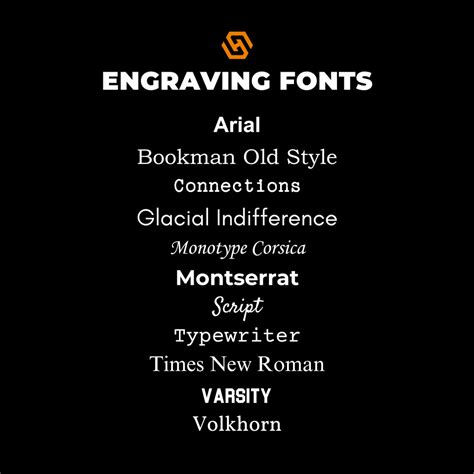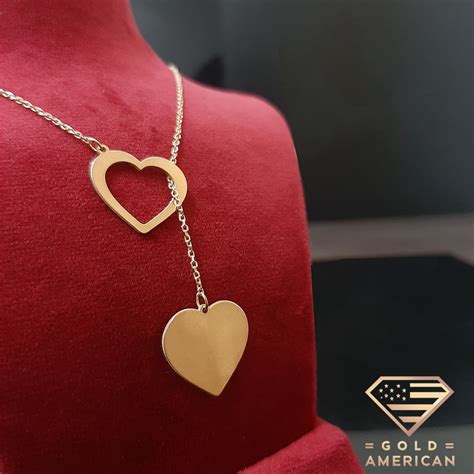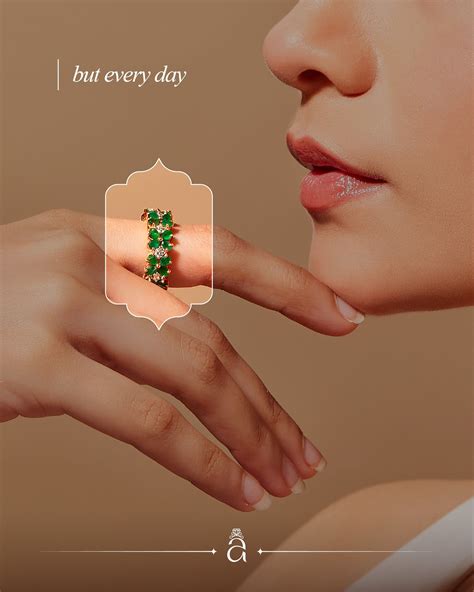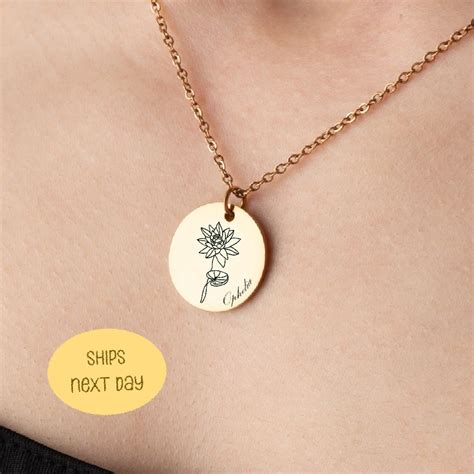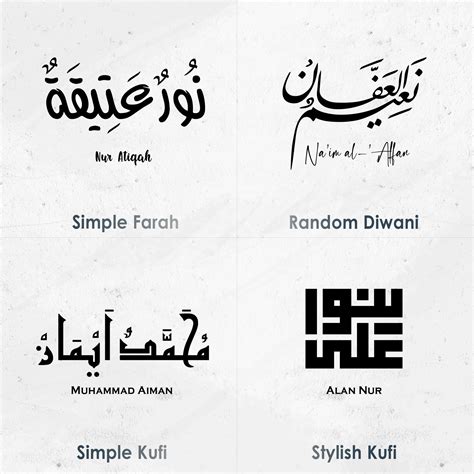
Selecting the perfective font for jewellery is a critical determination that influences how your brand is perceive by high-end consumers. Whether you are engraving a fragile message onto a gold band or contrive a advanced logotype for a luxury boutique, typography enactment as the silent embassador of your workmanship. The correct typeface pass the weight, value, and aesthetic individuality of your pieces before a client still touches the alloy. In the militant cosmos of okay accessories, elusive design choices - such as the proportionality between serif elegance and sans-serif minimalism - define whether your marque feeling timelessly traditional or cutting-edge and mod.
Understanding Typography in the Jewelry Industry
Jewelry is inherently optical and tactile. When selecting a font for jewellery, you must reckon the medium of covering. A face that looks stun on a digital product page might lose its discernability when laser-engraved onto a little pendant. The end is to choose a style that remains decipherable at minor scales while maintaining an air of exclusivity.
The Psychology of Jewelry Fonts
Different typefaces kindle distinct emotional reply in potential buyers. Understanding these associations aid in adjust your ocular identity with your ware offerings:
- Serif Fonts: These are the gold criterion for inheritance, luxury, and trustworthiness. They suggest a long-standing account of quality and are much expend by high-end luxury houses.
- Sans-Serif Fonts: These evoke modernity, clarity, and simplicity. They are staring for minimalist, modern-day jewellery lines that focus on geometrical shapes and clean lines.
- Script and Calligraphic Fount: Often expend for personalized part, these face hint familiarity, human touch, and artisanal craftsmanship.
Factors for Selecting the Right Typeface
When curating your visual assets, regard how your elect composition interacts with your overall merchandising scheme. Legibility is paramount, peculiarly when create digital catalog or societal media graphics where blind size vary importantly.
| Font Style | Best For | Brand Vibe |
|---|---|---|
| Modern Serif | Luxury Engagement Rings | Elegant, Timeless |
| Geometric Sans | Minimalist Gold Jewelry | Sleek, Contemporary |
| Graceful Book | Engraved Initial Necklaces | Personal, Artisanal |
Engraving vs. Digital Display
There is a stark difference between select a baptistery for a website and choose one for physical etching. Laser engraving machines command specific font weights and manner to guarantee that the alloy holds the design without thin out. If a font has lines that are too thin, the etching might fleet over clip. Always quiz your preferred mode on a sample part of metal before institutionalize to a final design.
✨ Note: Always check your chosen font for engrave has a bold adequate weight to resist daily habiliment and tear on precious metals like amber or platinum.
Strategic Implementation for Brand Identity
Consistency is the stylemark of a professional jewellery marque. Your face for jewellery publicity, your logo, and your warranty certification should all utilise a cohesive typography scheme. By restrict your marque to a chief typeface and a secondary support typeface, you control that your stuff seem uniform and curated, which reinforces customer trust.
Ultimately, the best choice for your marque calculate on the story you wish to recount. Whether you tip toward the regal sophistication of traditional seriph or the aerodynamic charm of modern sans-serifs, the antecedence remain the proportionality between artistic manifestation and structural integrity. By cautiously selecting a typeface that complements your aesthetic, you fortify your marque's presence in a free-enterprise marketplace and control that your craft is presented with the professionalism it deserve, helping your jewellery leave a lasting impression on every collector.